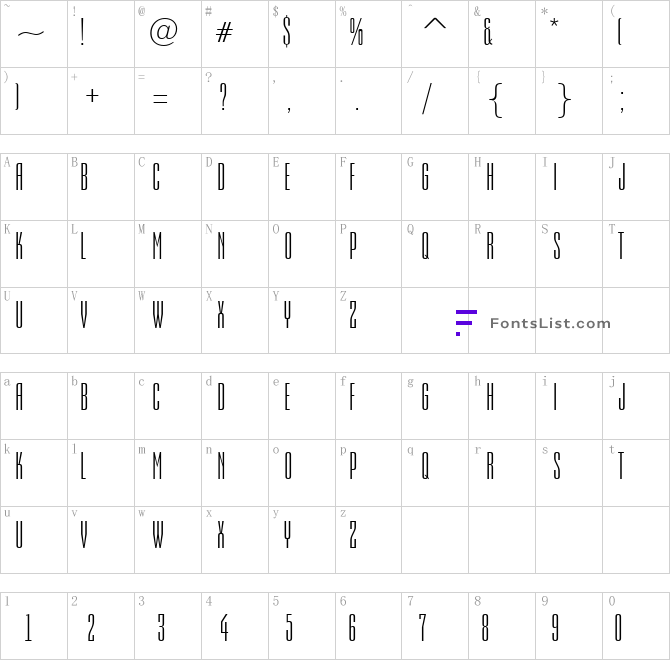
a_EmpirialNr.ttf is a very beautiful artistic font, a_EmpirialNr.ttf is widely used in the design and printing of various books and pictures,a_EmpirialNr.ttf has a strong visual impact,a_EmpirialNr.ttf is a commonly used font in newspapers, magazines and books, and is used in posters, e-commerce Poster design, store design, logo design, font design and other fields.a_EmpirialNr.